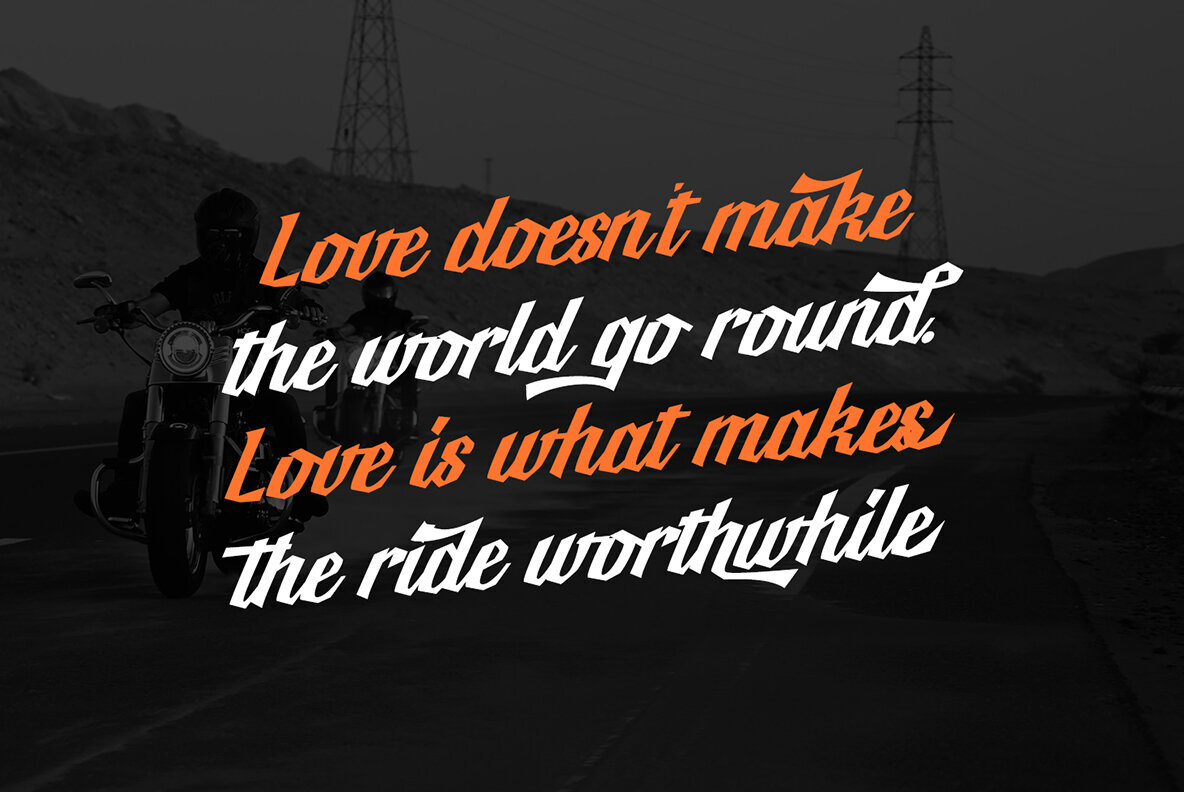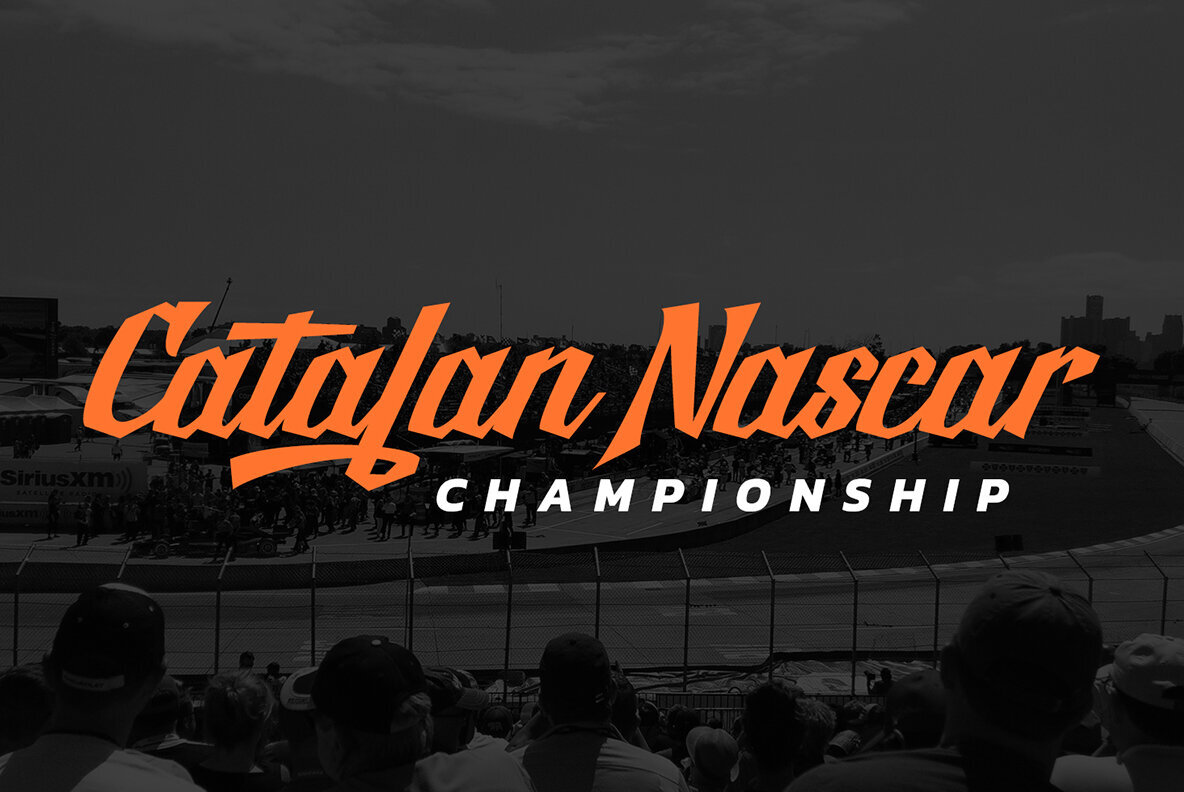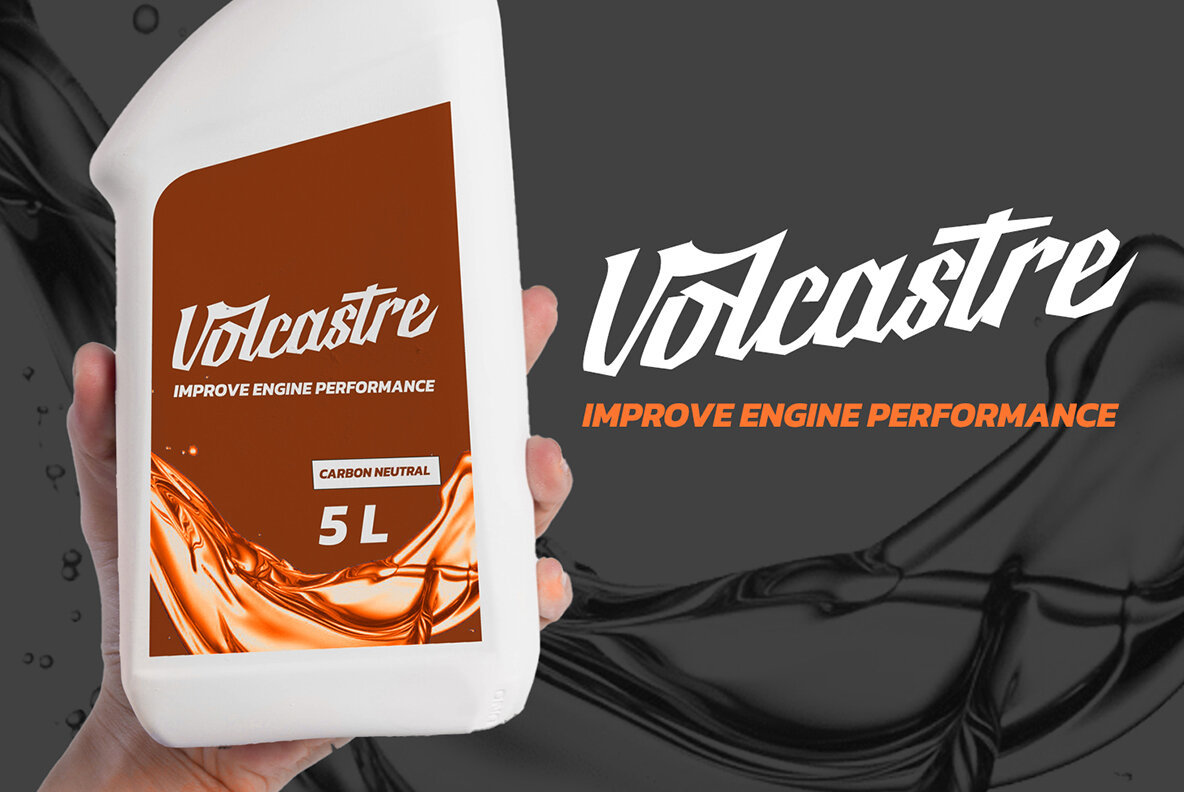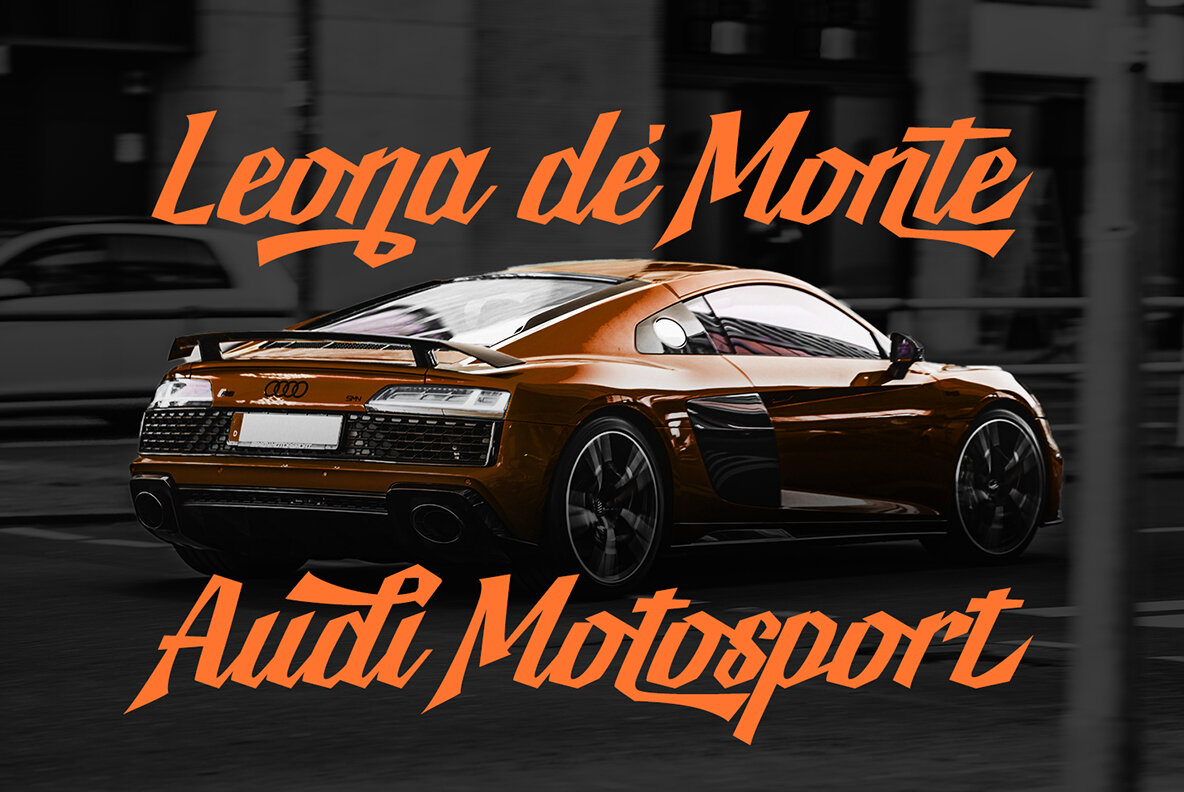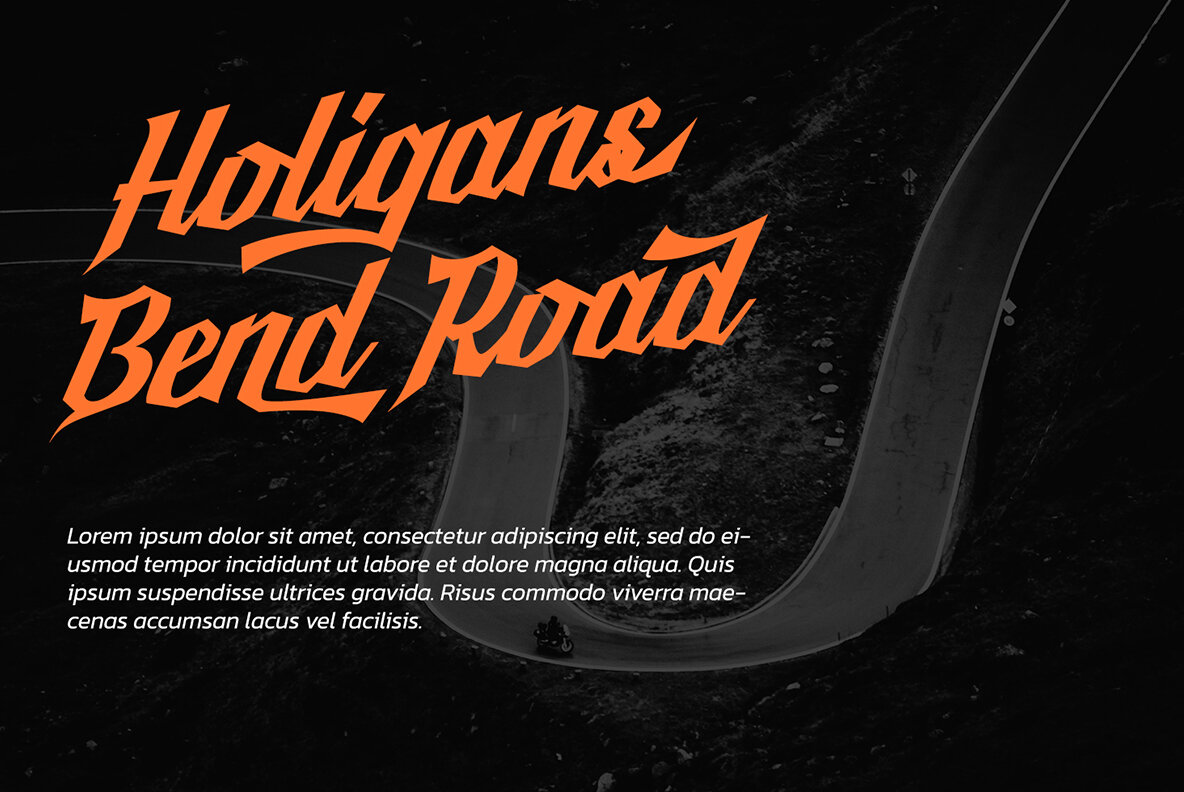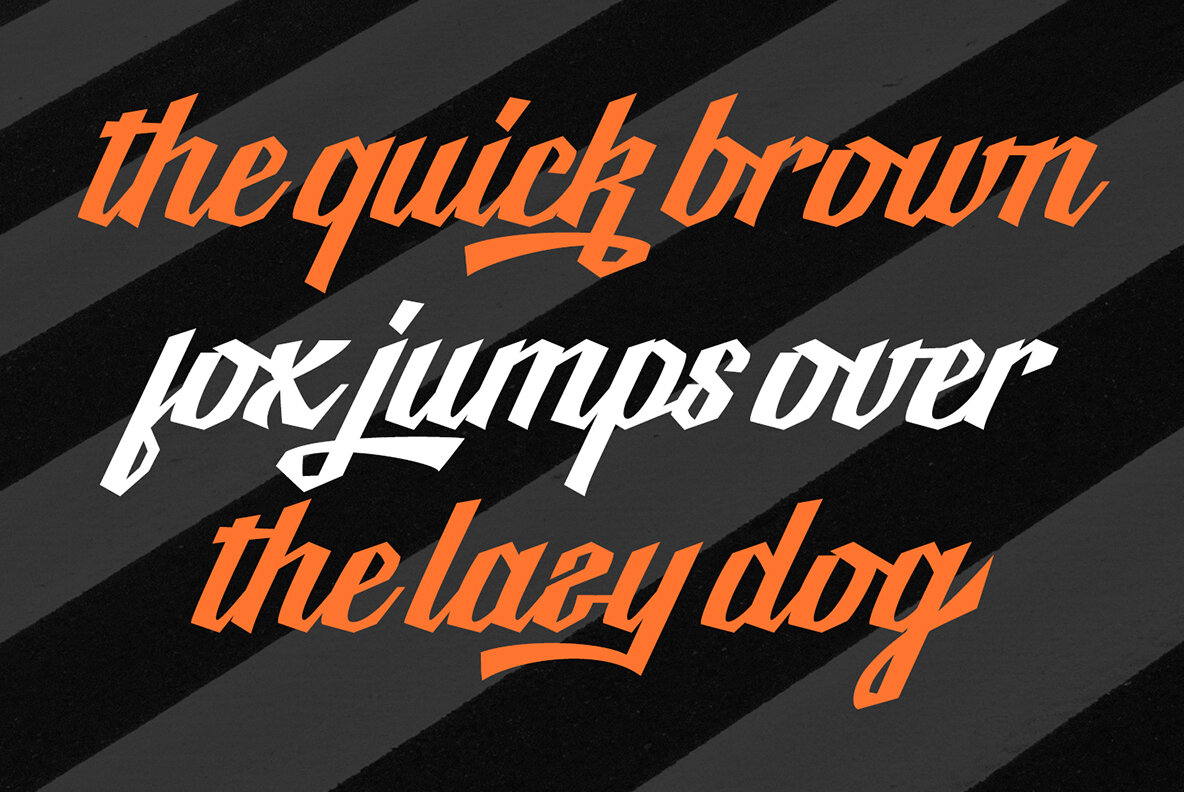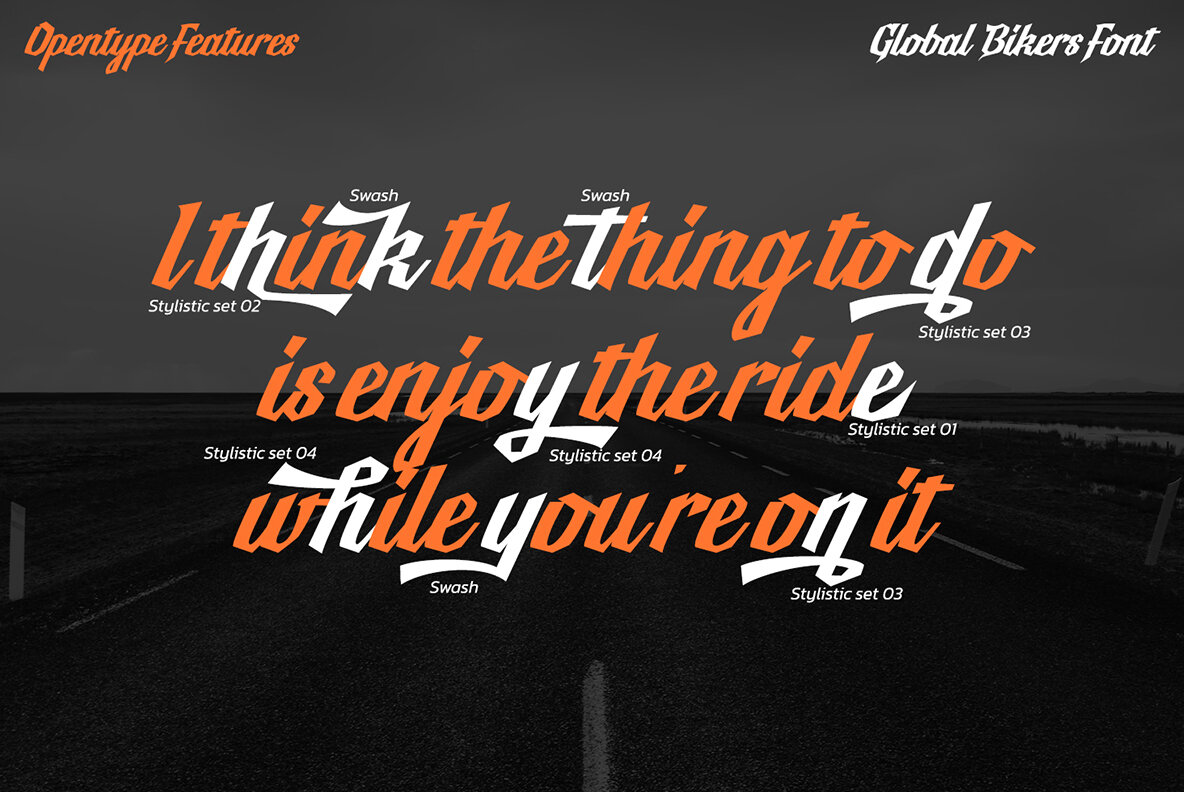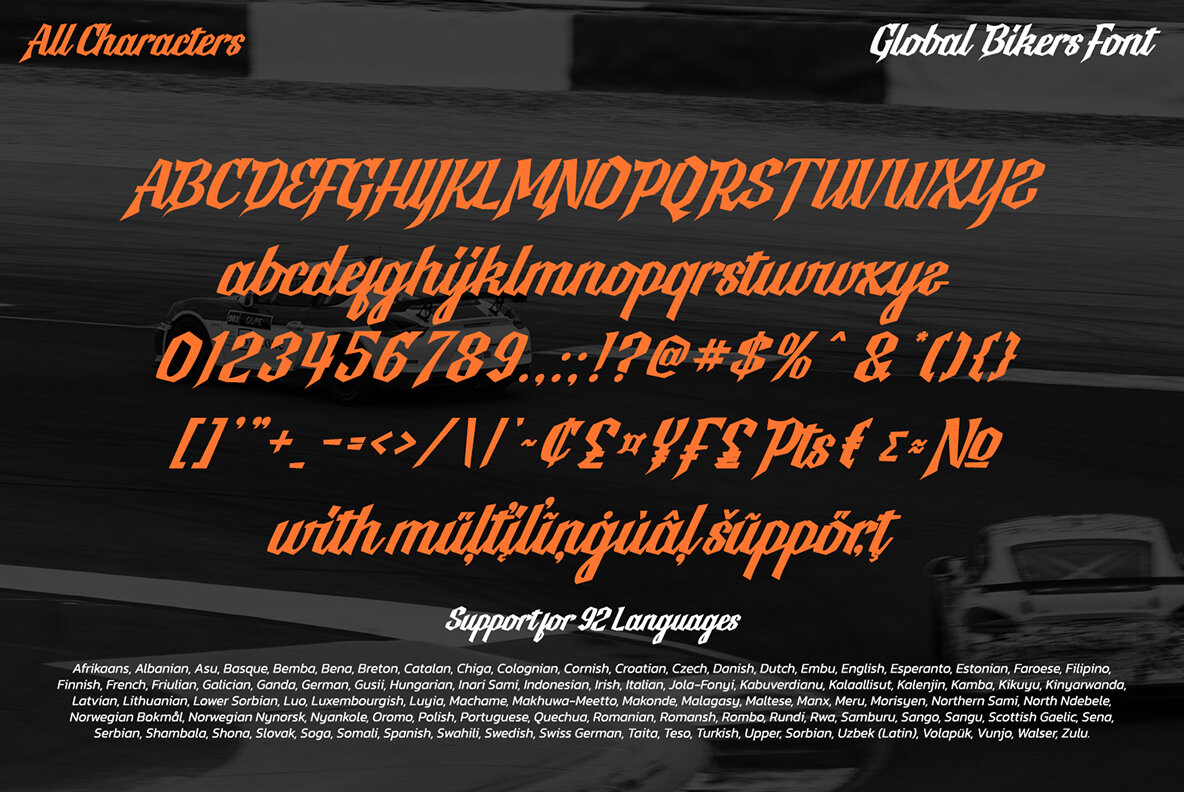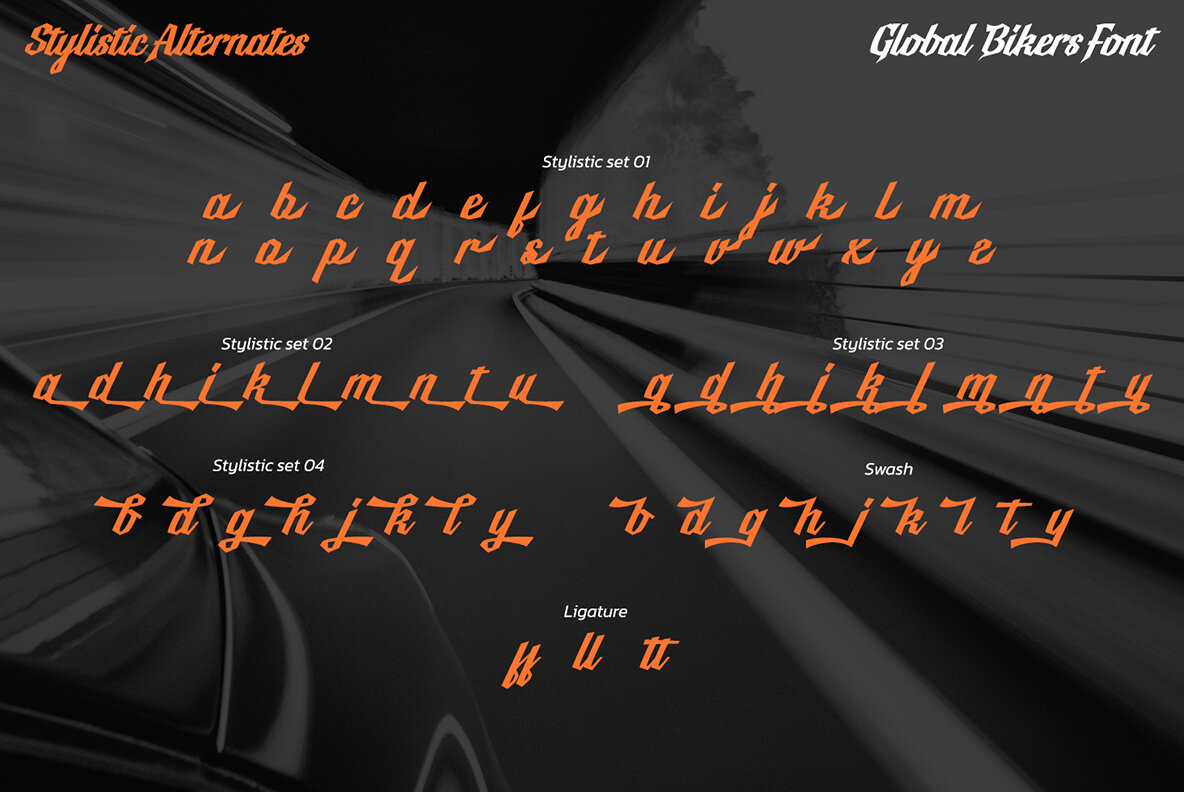
Global Bikers Font
Global Bikers
Global Bikers is a dynamic racing-themed script font designed to make a strong impact with its thick display style. Perfect for conveying bold messages, it stands out among cursive fonts by truly excelling in larger text applications. Its unique composition makes it an excellent choice for projects that require a standout visual element.
This versatile font comes with a variety of features to enhance design flexibility, including Stylistic Sets, Ligatures, Swashes, Multilingual Support, PUA Encoding, as well as Numerals and Punctuation. Global Bikers is ideal for diverse design projects such as posters, banners, logos, book covers, headings, and printed products. Additionally, it can be effectively utilized for merchandise and social media graphics. Explore its potential by viewing the font preview.